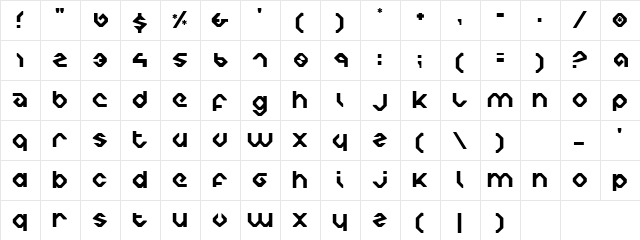
Fenny Kat Regular Font Preview
Fenny Kat Regular
Fenny Kat Regular Font Details
Design Context for Fenny Kat Typeface
Fenny Kat is a composed and adaptable typeface that performs quietly and consistently across a wide range of design contexts.